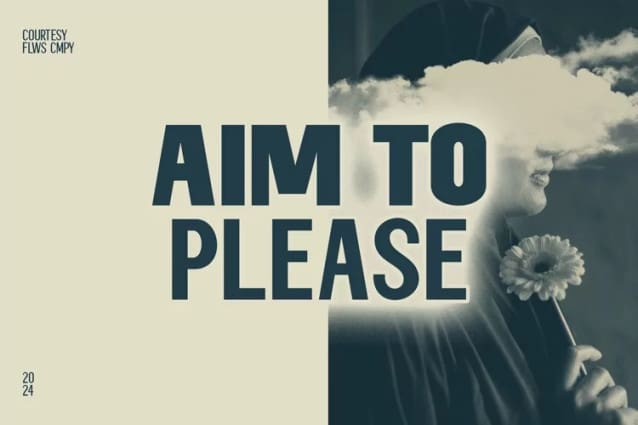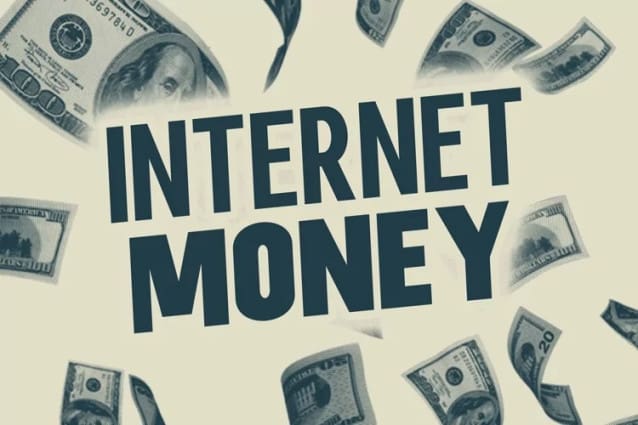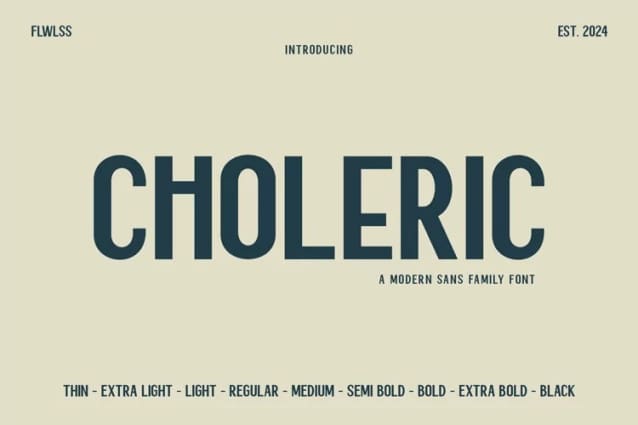
Choleric Font
Choleric Font is a versatile modern sans serif font family consisting of various weights ranging from thin to black styles, including thin, extra light, light, regular, medium, semi-bold, bold, extra bold, and black. Each style within the Choleric family maintains a strong and assertive impression with balanced characters. Featuring clean and sans-serif designs, Choleric emphasizes clarity and precision in every letter across its diverse weight spectrum. Its sharp and proportional lines ensure readability and aesthetic appeal, making it suitable for a wide range of design applications, from elegant titles to body text and modern graphic designs that demand a bold and contemporary look.
There’s some connected letters and some alternates that suitable for any graphic designs such as branding materials, t-shirt, print, business cards, logo, poster, t-shirt, photography, quotes .etc
Choleric Font support for some multilingual. Also contains uppercase A-Z and lowercase a-z, alternate character, numbers 0-9, and some punctuation.